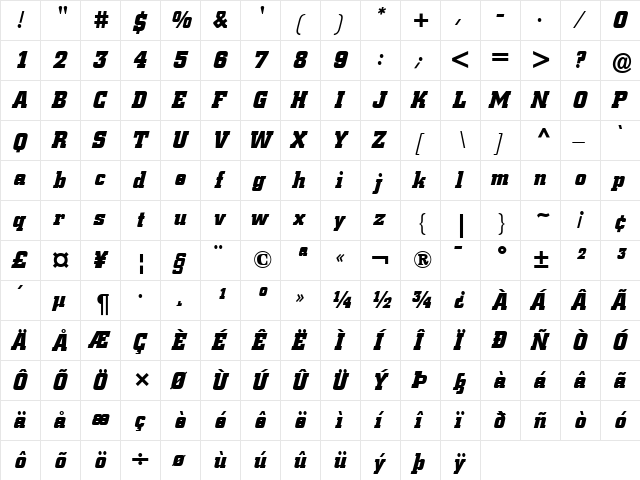
Berthold City ItalicBold
Design Context for Berthold City Typeface
Berthold City offers clean, dependable letterforms without strong stylistic allegiance, making it a practical choice for designers who need flexibility. The slanted form adds forward momentum and visual energy. Its bold stroke weight gives it real presence on the page.
Pro Tip: Use Berthold City for emphasis, pull quotes, and subheadings where its slanted energy can add rhythm to the layout.